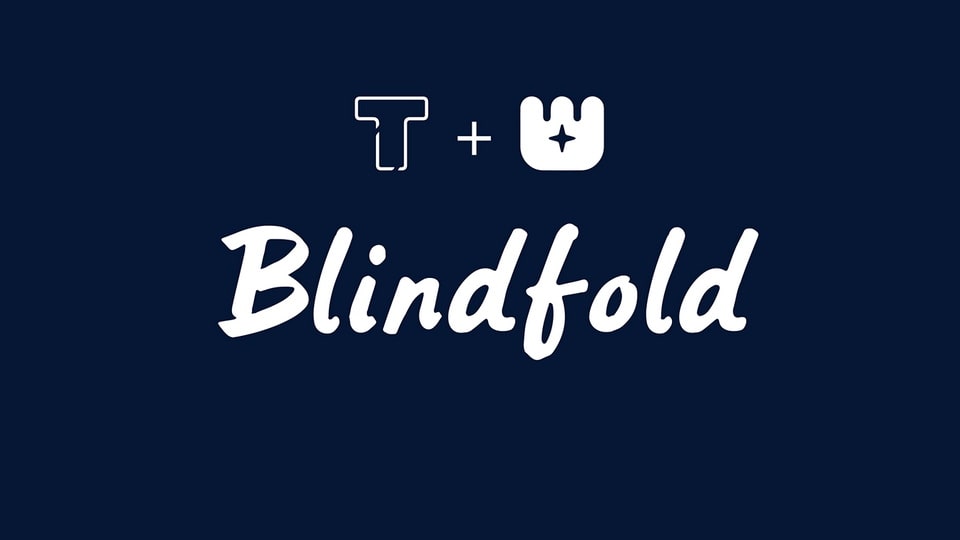
Download LT Blindfold font, a disconnected script typeface that unbelievably captures the spirit of the 50’s with its bold curves, flowing letterforms, and nostalgic flair.
Designer: LyonsType